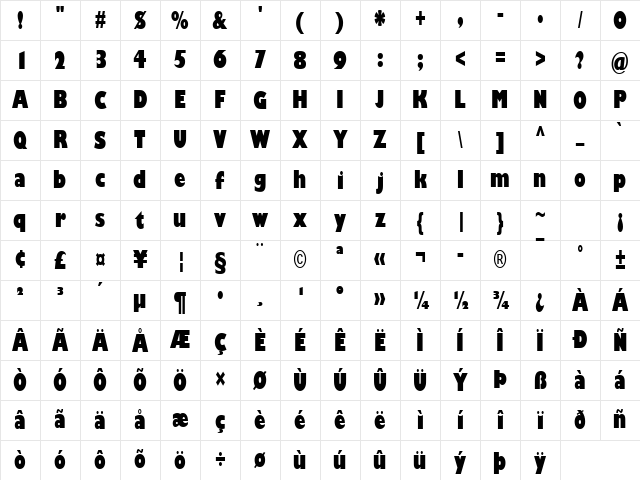
Complete Gill Sans MT Ultra Bold Cond Regular glyph index. Displaying only characters natively supported by Gill Sans MT Ultra Bold Cond Regular font.
Gill Sans MT Ultra Bold Cond is a composed and adaptable typeface that performs quietly and consistently across a wide range of design contexts. Its bold stroke weight gives it real presence on the page. Its narrow stance lets it pack a punch even in space-constrained designs.